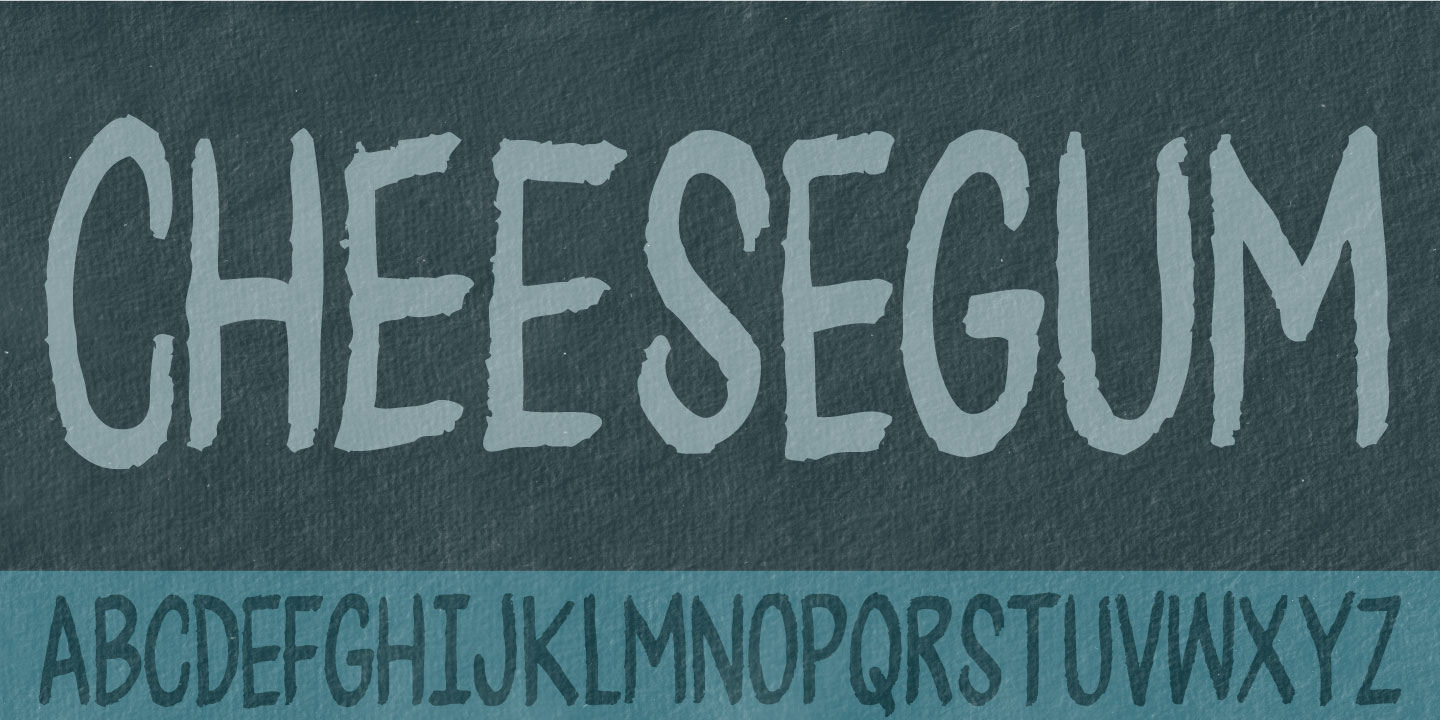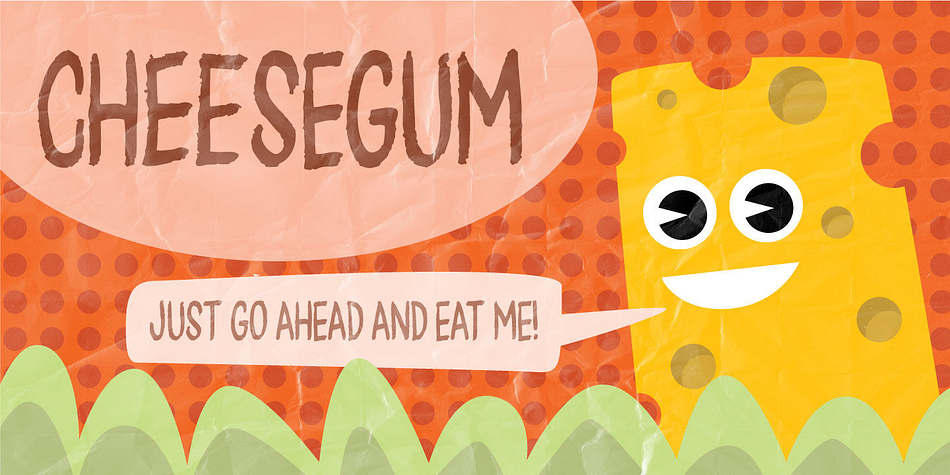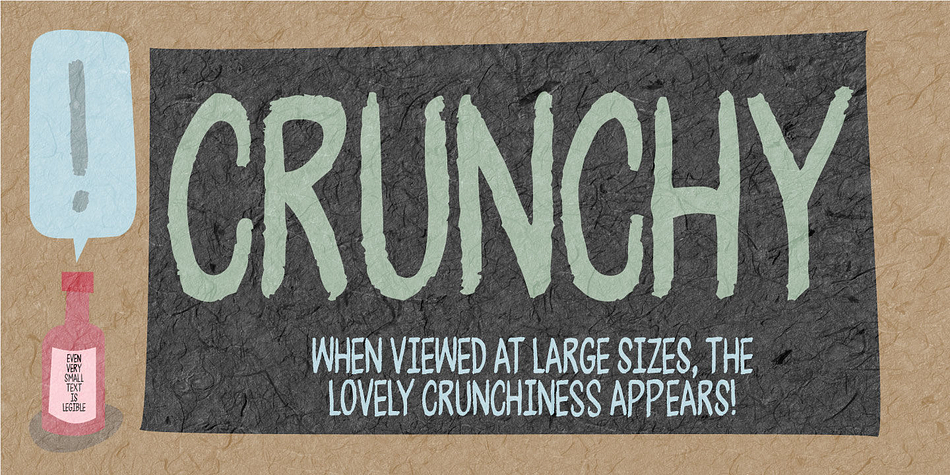
Cheesegum is a hand display font published by Pizzadude.dk.
Cheesegum is super legible even at very small sizes. If you use Cheesegum at larger sizes, you can see the delightful crucnhy edges! Kinda like roasted cheese! The crunchier, the lovelier! :)
Just go ahead and eat some Cheesegum!!!